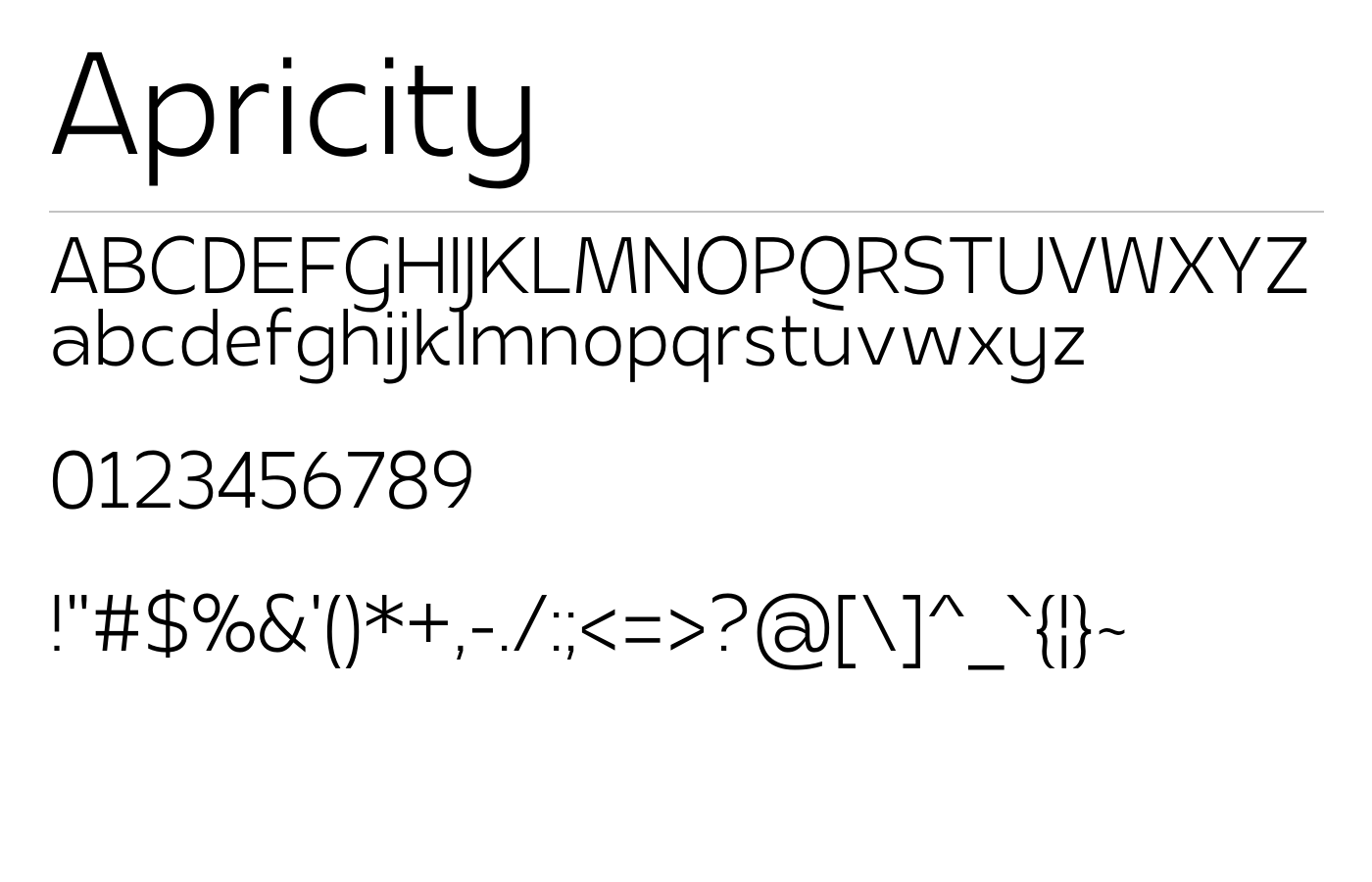
Apricity is a clean, modern sans-serif font with a refined and slightly condensed structure that lends it an elegant and approachable feel. Its smooth, consistent stroke weight and simple geometric forms make it highly legible and versatile, ideal for contemporary branding, editorial design, and user-friendly digital interfaces. This font works particularly well in headlines and body text where clarity and a fresh, professional tone are essential.
Apricity Font
About Apricity Font